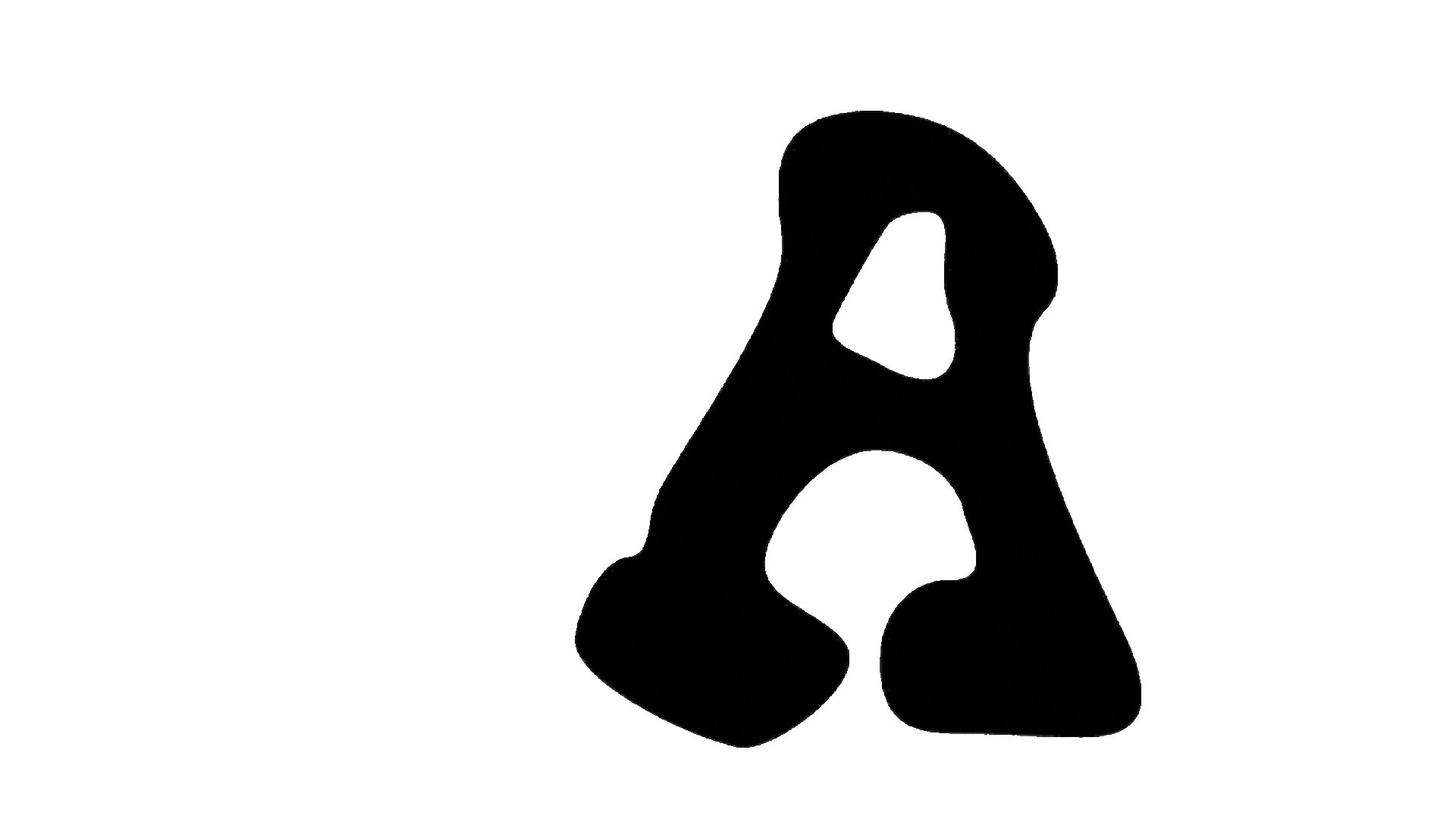
Each letter carries an emotion.
Some tremble.
Some lean into each other.
Some disappear when looked at too long.
This typeface is variable in shape, and intention.
It responds to pressure.
To proximity.
To feeling.
Each letter carries an emotion.
Some tremble.
Some lean into each other.
Some disappear when looked at too long.
This typeface is variable in shape, and intention.
It responds to pressure.
To proximity.
To feeling.